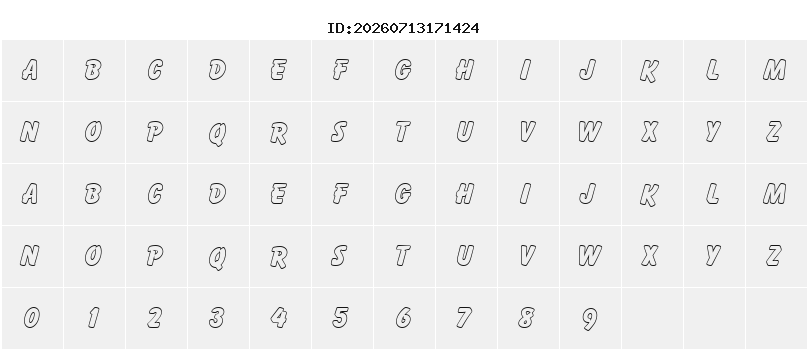
BalloonOutPExtBol Preview
• Font Name: BalloonOutPExtBol
• Font ID: URW:BalloonOutP-ExtrBold:1994
• Full Font Name: BalloonOutPExtBol
• PostScript Name: BalloonOutP-ExtrBold
About BalloonOutPExtBol.ttf
BalloonOutPExtBol.ttf is a modern, elegant sans-serif font designed for ultimate readability and visual harmony. Perfect for branding, headlines, web design, and print materials.